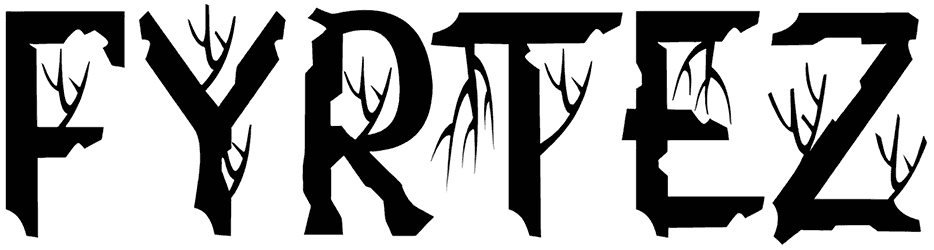
Fyrtez Font
Fyrtez is one of those exceptional Halloween fonts that you probably haven’t seen anywhere else. This jungle font has decorations around its letters that are similar to the state of dry tree stems and can create a slight feeling of stress in people.
These pure and unique letters are a tool that you cannot sleep on and should be added to your projects immediately. So if you’re running a challenging logo, poster, and short text, don’t sleep on Fyrtez.